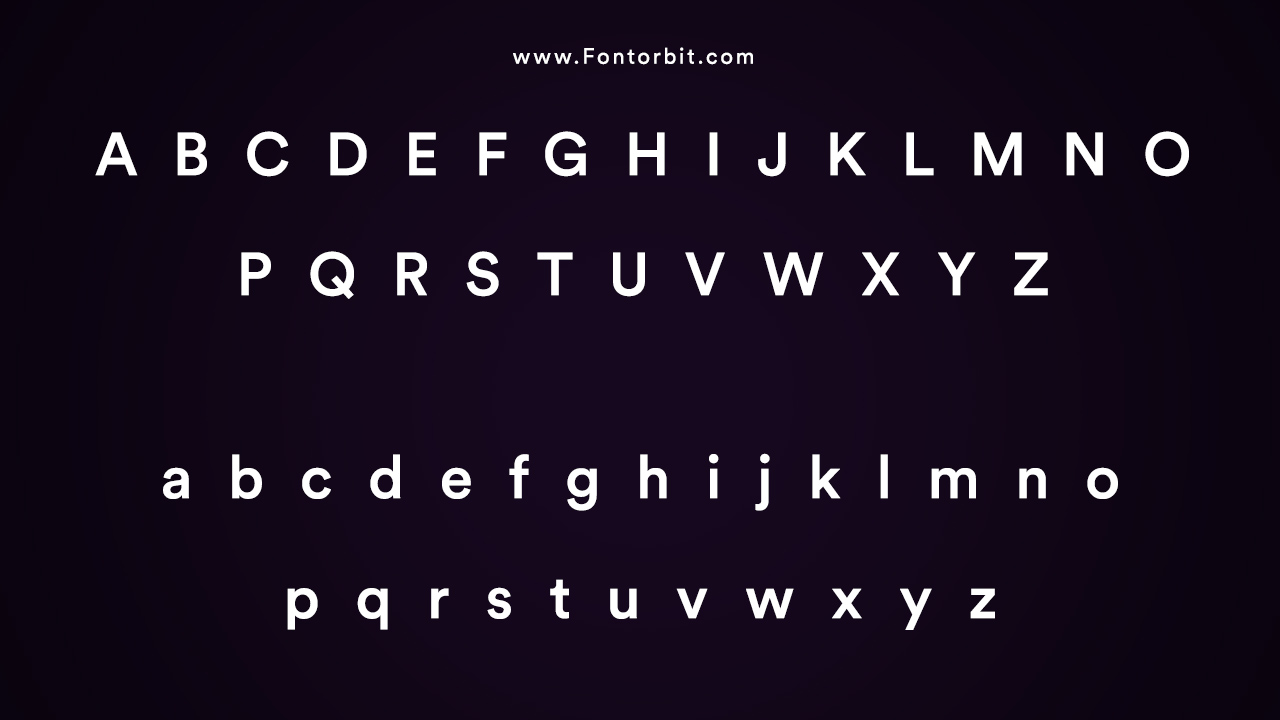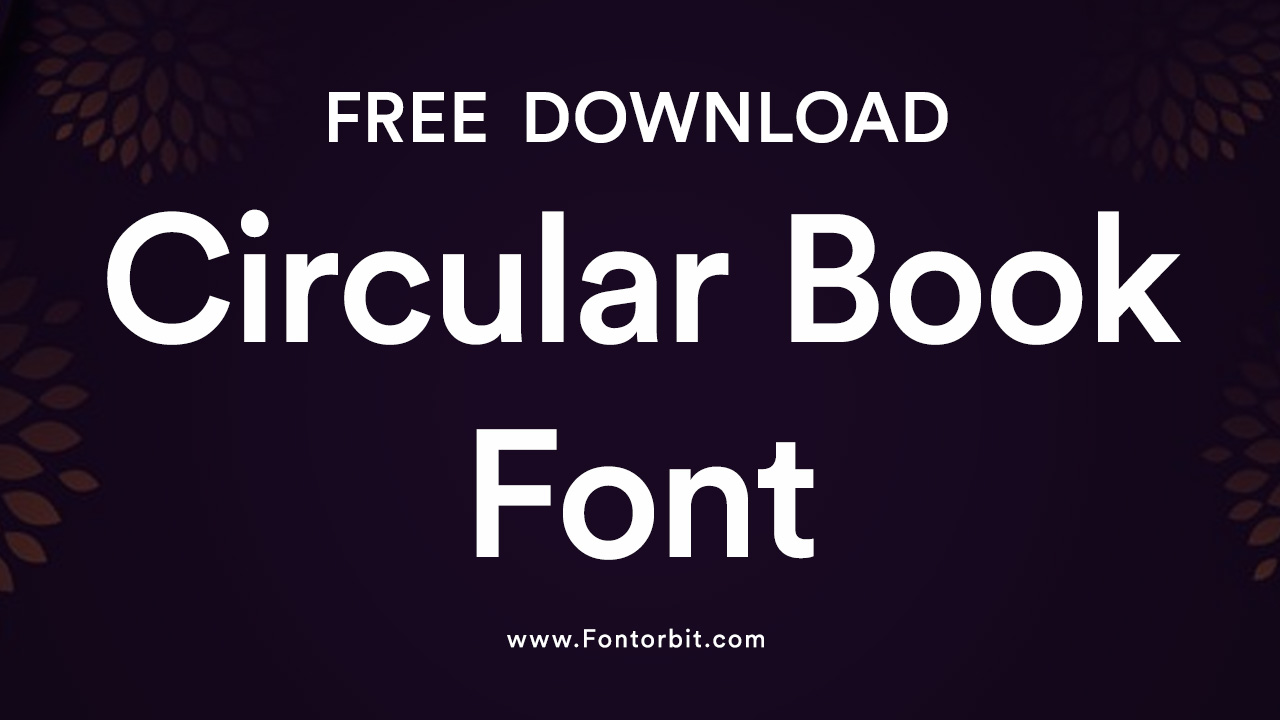
The Circular Book Font, designed by Laurenz Brunner and published by Lineto in 2013, is a geometric sans-serif typeface. Known for its clean and modern aesthetics, Circular strikes a balance between rationality and warmth.
It is influenced by the geometric grotesque style that gained popularity in pre-war Germany but incorporates a more contemporary and rounded approach. Its sleek design makes it popular in both digital and print media.
Circular Book Font Family Includes
Circular is a versatile family with multiple weights and styles. Its clean structure is perfect for a wide variety of design purposes, from branding to editorial projects.
- Circular Regular
- Circular Italic
- Circular Book
- Circular Thin
- Circular Thin Italic
- Circular Light
- Circular Light Italic
- Circular Book Italic
- Circular Medium
- Circular Medium Italic
- Circular Bold
- Circular Bold Italic
- Circular Black
- Circular Black Italic
- Circular ExtraBlack
- Circular ExtraBlack Italic
Notable Uses Of Circular Book Font
- Editorial designs (magazines, books)
- Website interfaces
- App interfaces
- Signage and wayfinding
- Corporate identity materials
Due to its clean, minimalist aesthetic, the Circular Book Font is frequently used for branding projects, editorial work, and user interface design. Notable brands such as Spotify have utilized Circular in their branding, recognizing its modern yet approachable appearance.
The Circular Book Font’s geometric precision mixed with a friendly, approachable look makes it a versatile choice for modern design projects. Whether for branding, UI, or editorial design, its readability and aesthetics shine in various mediums.
1.Is There A Monospaced Version Of Circular?
Yes, Circular Mono is the monospaced version.
2.What Are Some Notable Uses Of Circular?
Branding projects like Spotify.
3.What Similar Fonts Exist?
Futura, Avenir, and Proxima Nova are close alternatives.
4.Where Can I Use The Circular Book Font?
It’s ideal for branding, websites, and editorial work.
5.Can Circular Be Used For Signage?
Yes, its clarity makes it suitable for signage.
7.What Makes Circular Unique?
Its combination of geometric precision with warmth and friendliness.